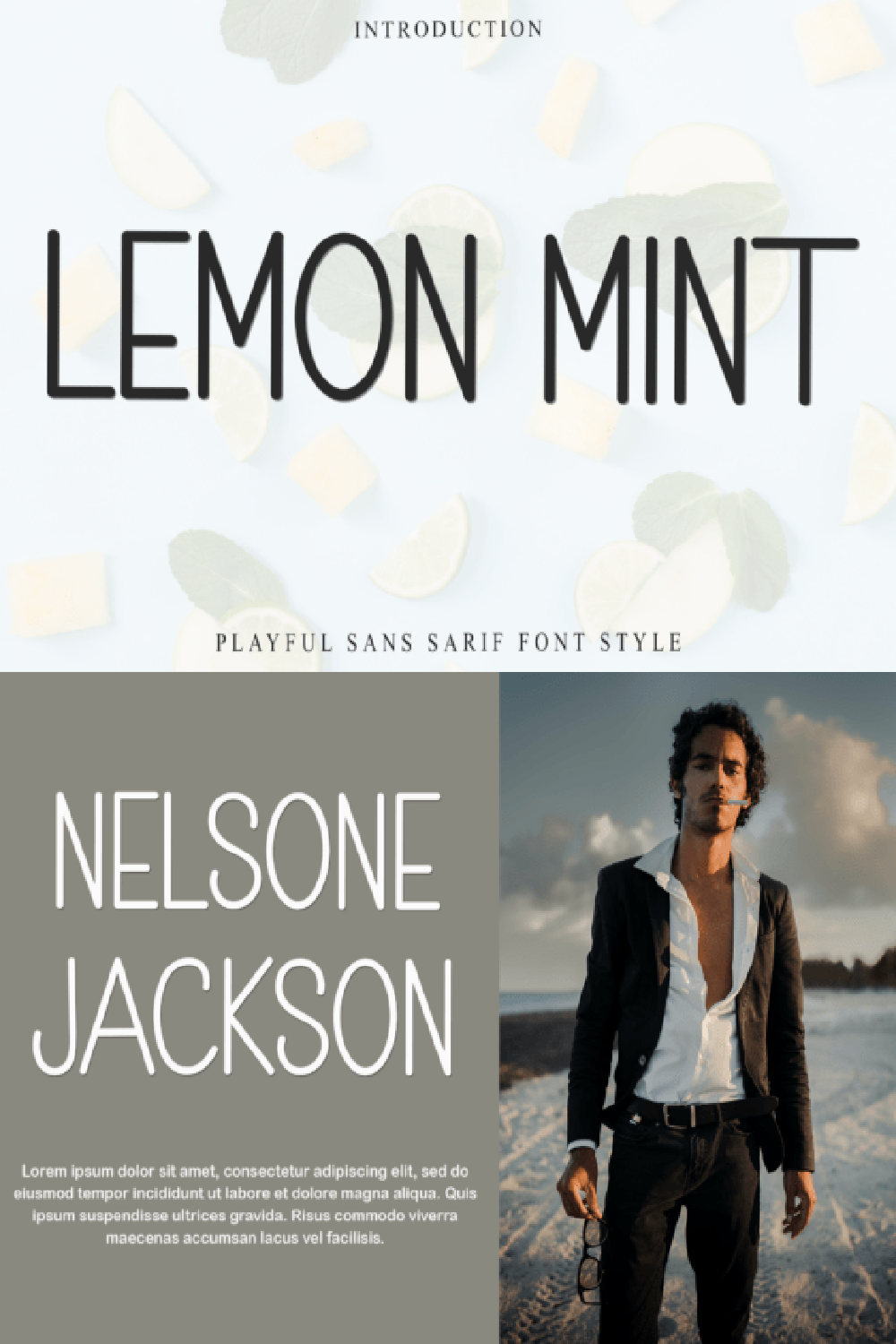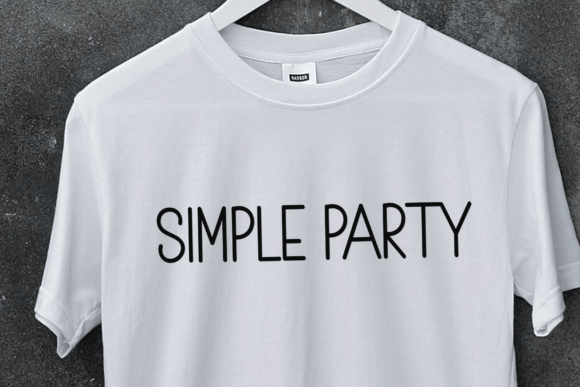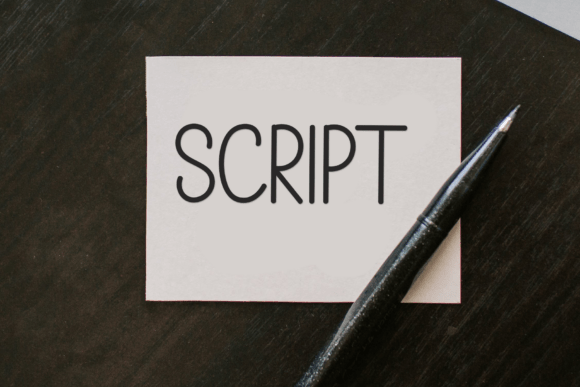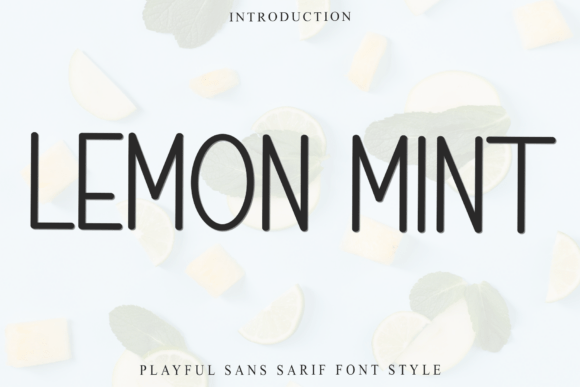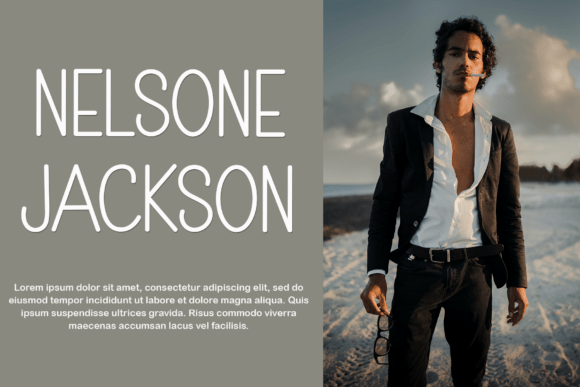
Lemon Mint Font: A Playful Sans Serif for Modern Logo Design
About the Lemon Mint Font
Add a touch of class to your work with the Lemon Mint Font, a truly exceptional typeface. LEMON MINT is a beautiful and eye-catching font designed with a soft, unique touch. Its distinctive strokes give it a special character, making it meaningful and versatile for future use. With various characters, it’s perfect for design projects, crafts, and other creative works.